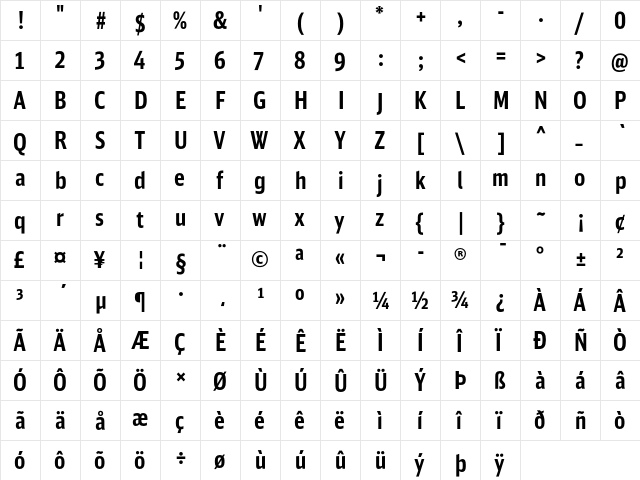
DB Sans Comp Altern Bold
Design Context for DB Sans Comp Altern Typeface
DB Sans Comp Altern offers clean, dependable letterforms without strong stylistic allegiance, making it a practical choice for designers who need flexibility. Its bold stroke weight gives it real presence on the page.
Pro Tip: Pair DB Sans Comp Altern with a font of contrasting weight or personality to build a more expressive typographic hierarchy.